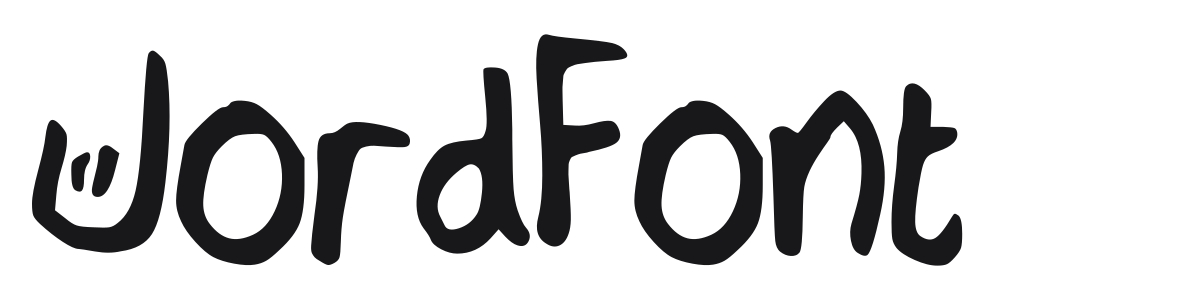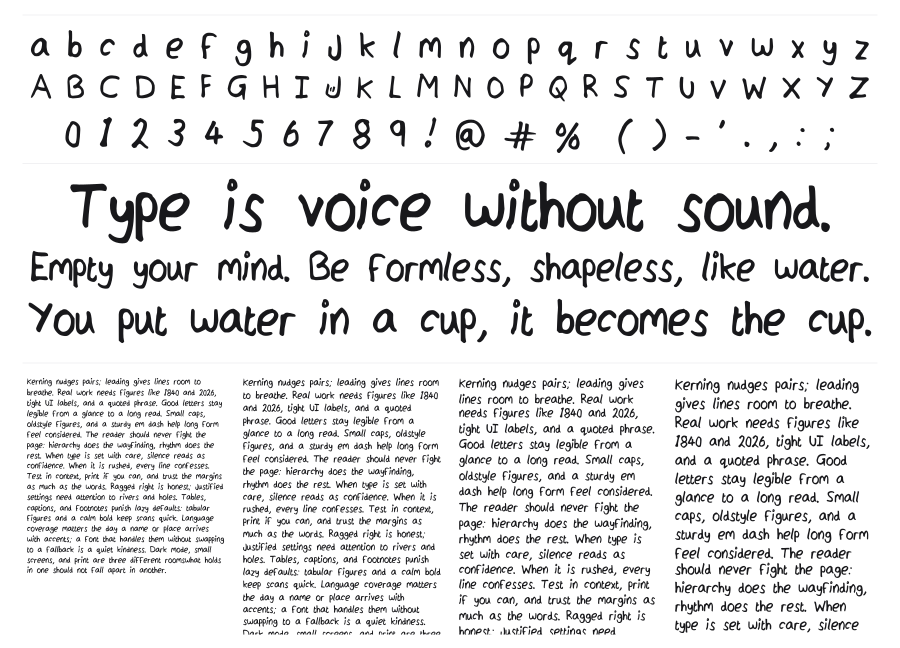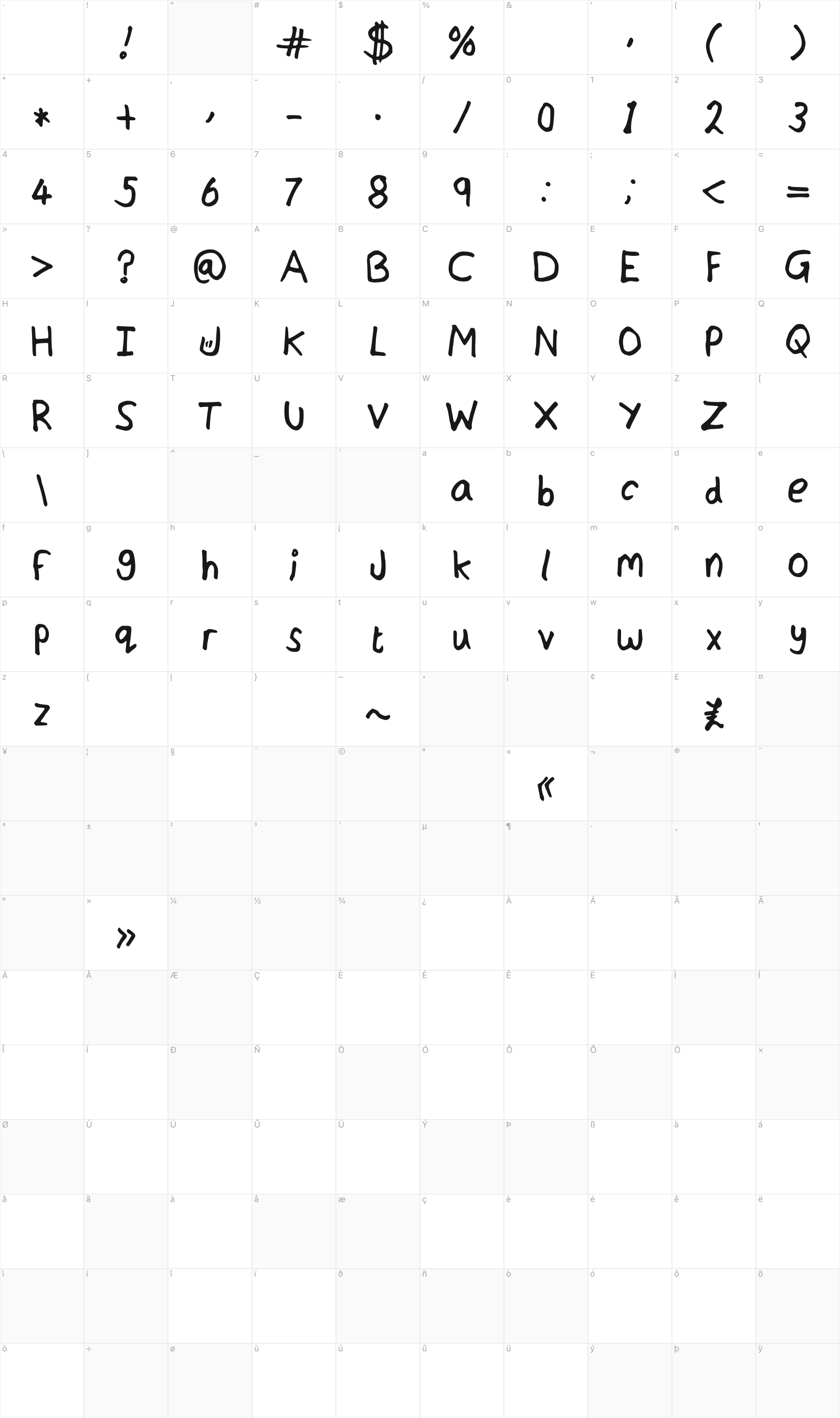
JordFont
by Jordan Firth
JordFont is a thick, casual handwritten face by Jordan Firth with bold marker-style strokes and a slightly quirky character. The letters feel genuinely informal, like someone jotting notes with a chunky felt-tip, with enough personality in the letterforms to keep things playful without becoming a novelty act. Works naturally for headlines, social media graphics, and packaging where you want something that reads as human and approachable.